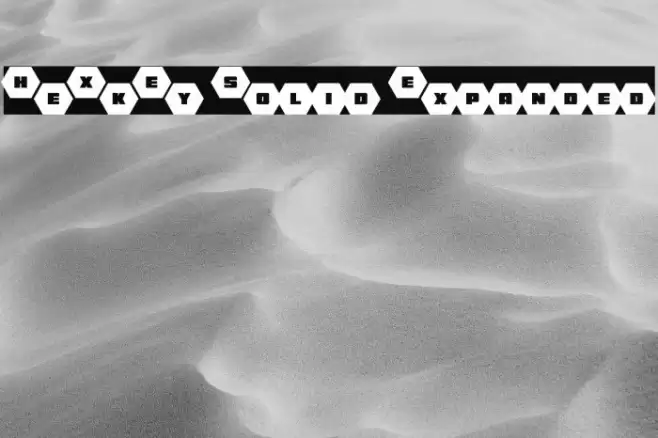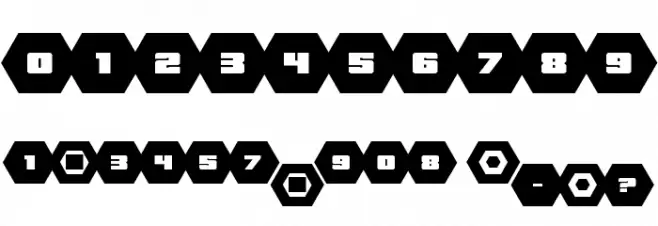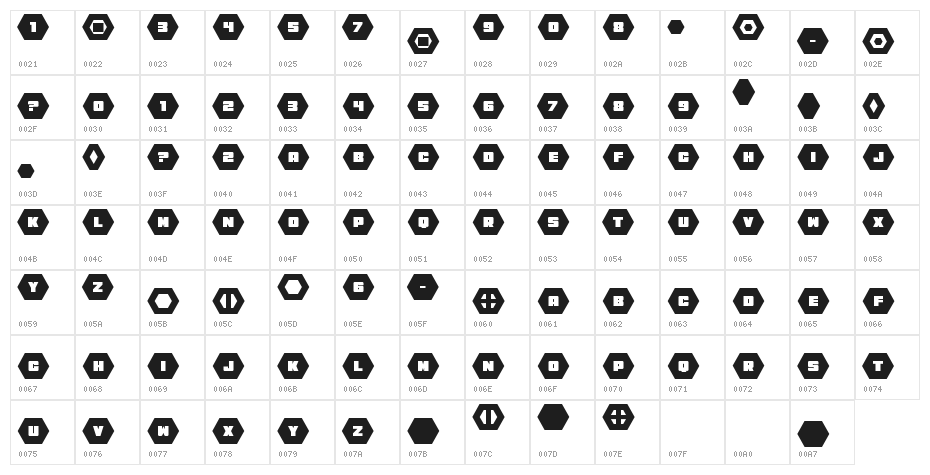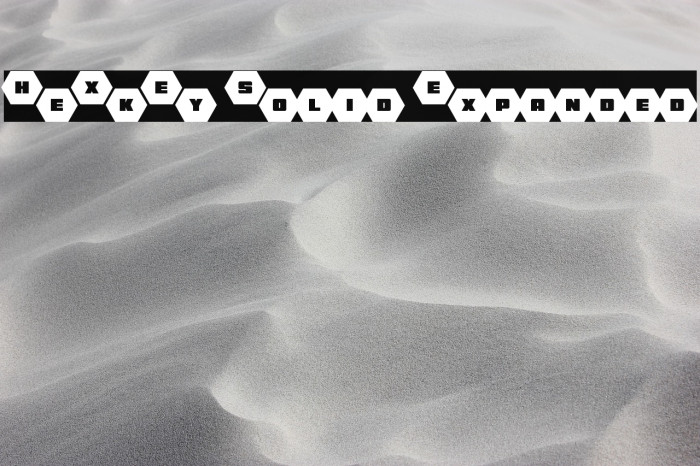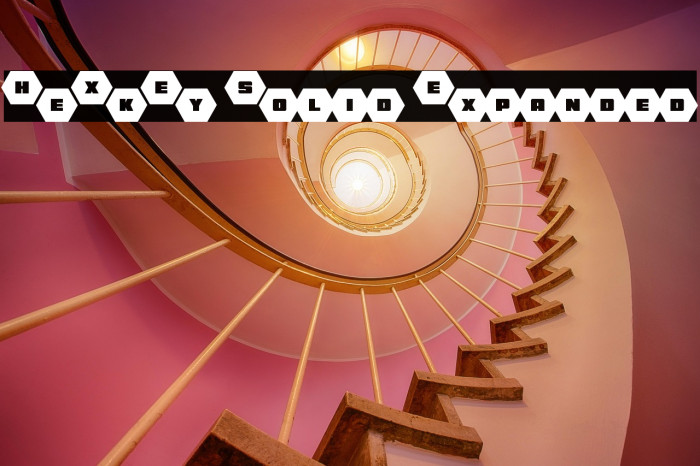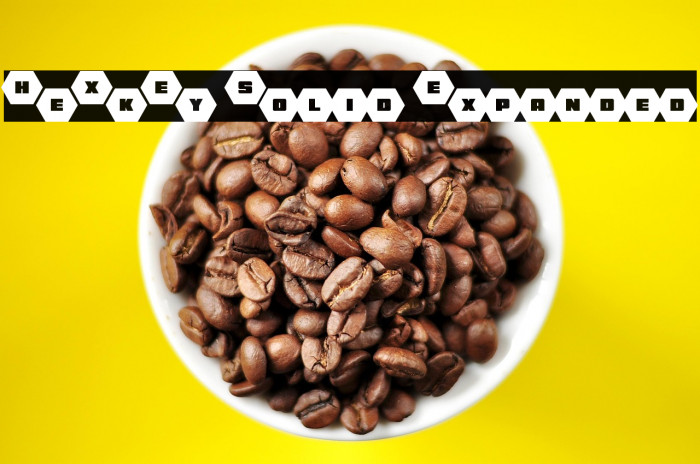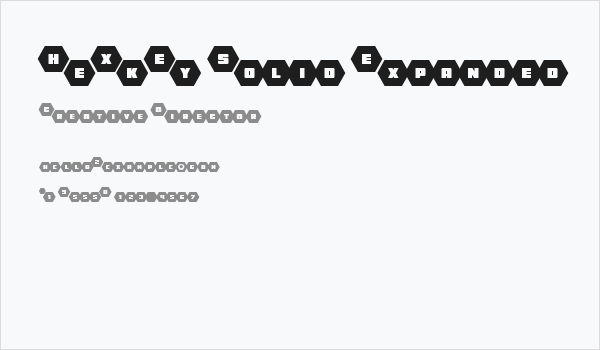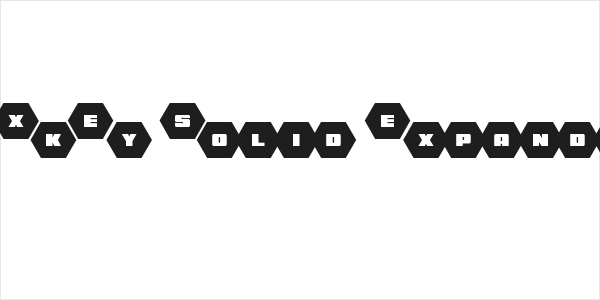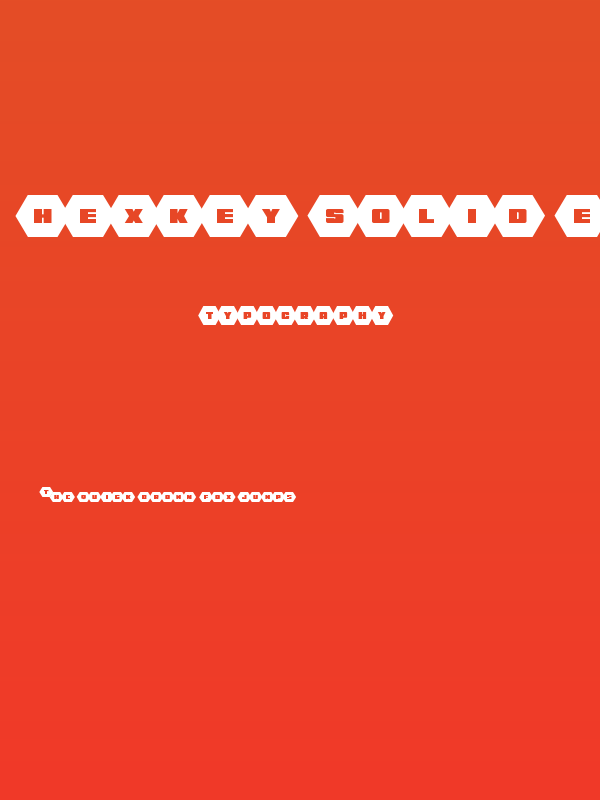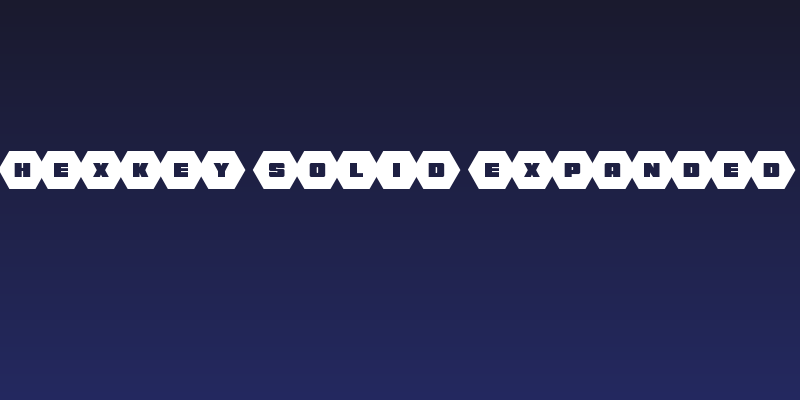
HeXkEy Solid Expanded Font
HeXkEy Solid Expanded Description
This font features a bold, geometric design with each character enclosed in a hexagonal shape. The letters and numbers are solid and uniformly filled, creating a strong visual impact. The style is distinctly modern and futuristic, with a unique expanded width that gives it a commanding presence. The characters are evenly spaced within their hexagonal boundaries, ensuring clarity and readability. This font is ideal for projects that require a bold statement, such as branding, posters, or digital media where a modern, tech-inspired aesthetic is desired.
A bold, geometric font with hexagonal characters and a modern, futuristic style from Uncategorized fonts.
- Proposed Projects: Ideal for branding, posters, digital media, and projects requiring a modern, tech-inspired aesthetic.